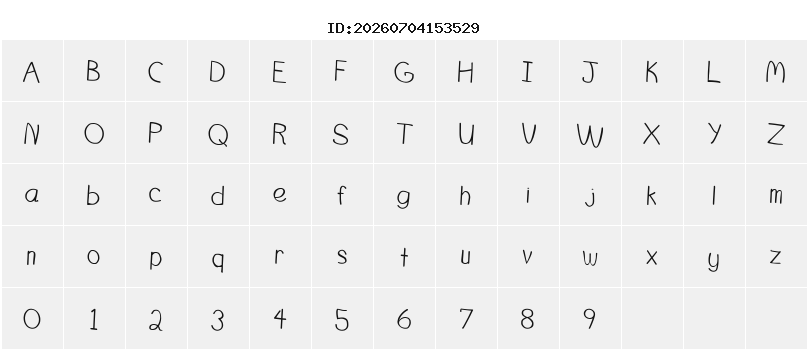
DuncanItalic Preview
• Font Name: DuncanItalic
• Font ID: Altsys Fontographer 3.5 DuncanItalic Italic
• Full Font Name: DuncanItalic Italic
• Version: Altsys Fontographer 3.5 8/29/92
• PostScript Name: DuncanItalic
• Character Count: 241
About DuncanItalic.ttf
DuncanItalic.ttf is a modern, elegant sans-serif font designed for ultimate readability and visual harmony. Perfect for branding, headlines, web design, and print materials.